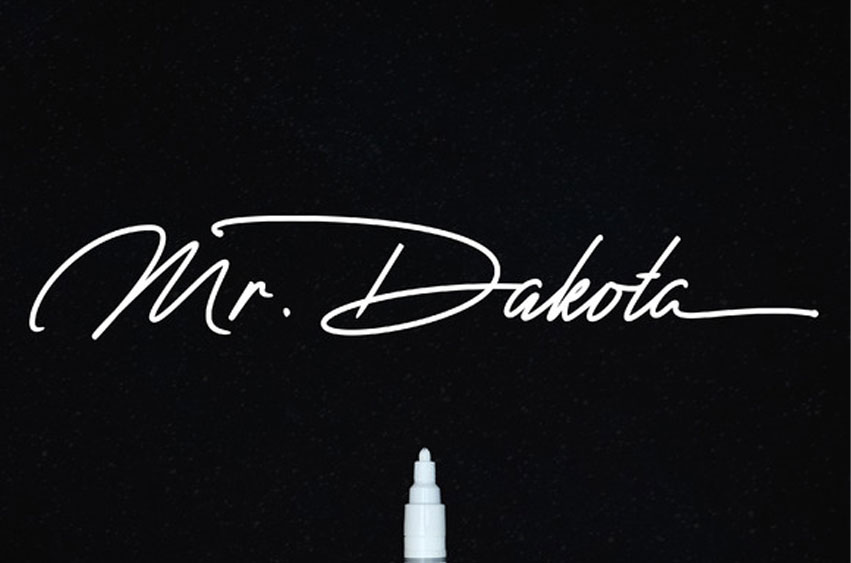
Mr. Dakota Font
Mr. Dakota Font script is a new fresh & modern script with a sweet calligraphy style and decorative characters.
Every letter has a unique and beautiful touch, which will make your design come alive!